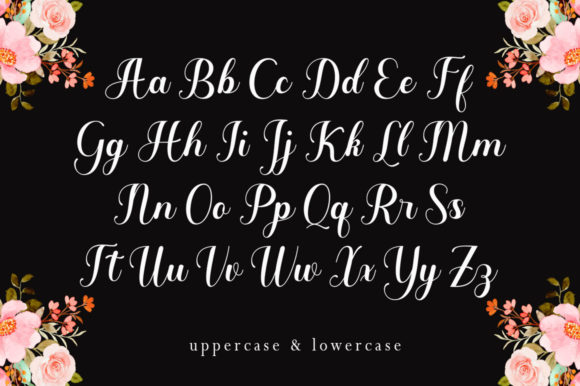
Mavedick Font
db-ku.com - Script & Handwritten -- Mavedick is a beautiful and refined script font. It has a classy, elegant and modern look that can be used for various stylish creations. This font is PUA encoded which means you can access all of the amazing glyphs and ligatures with ease!